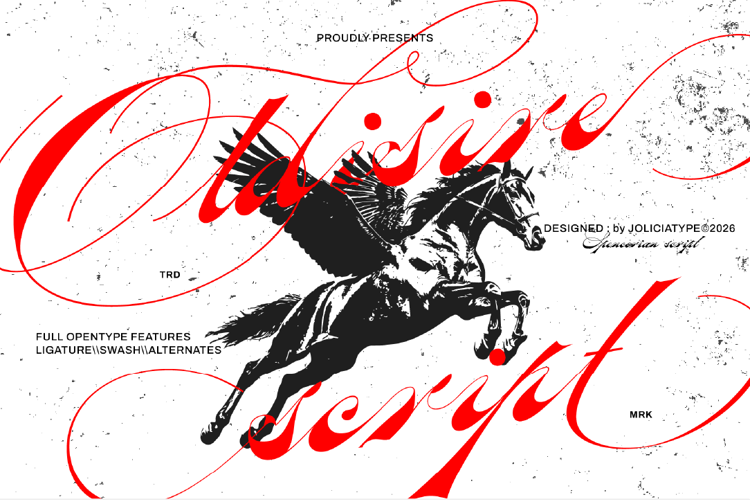
Oldisire Script Font
Oldisire Script is an elegant vintage script font inspired by the
graceful penmanship of the Spencerian era. Featuring dramatic
flourishes, sweeping curves, delicate connections, beautiful
ligatures, and stylish alternates, it creates expressive and
luxurious typography with an authentic handcrafted feel. Perfect
for branding, logos, invitations, wedding stationery, packaging,
posters, and designs that call for timeless 19th-century charm with
a sophisticated contemporary touch.